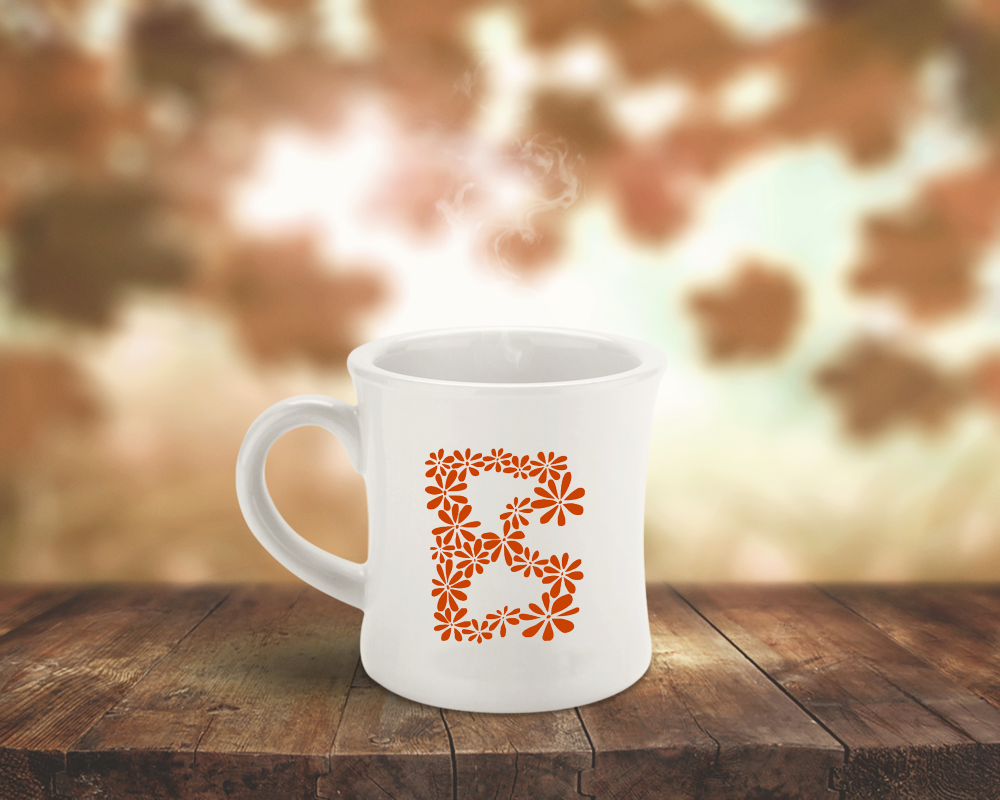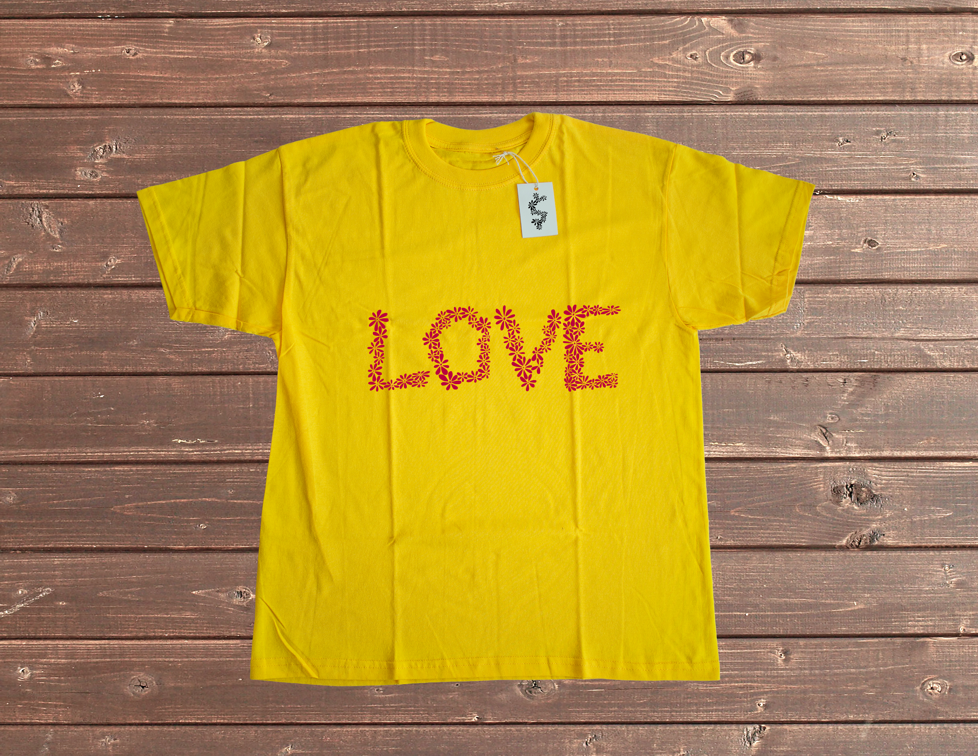
The Chamylle Hand-Drawn Decorative Font: A Designer’s Delight
Are you a designer or crafter looking for a unique and eye-catching font to add a personal touch to your projects? Look no further than the Chamylle font, a beautiful hand-drawn decorative font that is sure to impress. In this article, we’ll take a closer look at the Chamylle font, its features, and how you can use it to elevate your designs.
What is the Chamylle Font?
The Chamylle font is a hand-drawn decorative font that is perfect for adding a touch of elegance and sophistication to your designs. With its delicate lines and whimsical flair, this font is sure to capture the attention of your audience. Whether you’re working on a branding project, a craft tutorial, or a social media graphic, the Chamylle font is a versatile choice that can be used in a variety of contexts.
Features of the Chamylle Font
So, what makes the Chamylle font so special? Here are just a few of its standout features:
- Hand-drawn with love: The Chamylle font is carefully hand-drawn with attention to detail, giving it a unique and personal feel.
- Delicate lines: The font features delicate lines and subtle curves, making it perfect for designs that require a touch of elegance.
- Whimsical flair: The Chamylle font has a playful, whimsical quality that adds a touch of personality to your designs.
- Upper and lowercase letters: The font includes both upper and lowercase letters, making it easy to use in a variety of contexts.
- Multilingual support: The Chamylle font supports multiple languages, making it a great choice for designers who work with international clients.
Using the Chamylle Font in Your Designs
So, how can you use the Chamylle font in your designs? Here are a few ideas to get you started:
- Branding projects: Use the Chamylle font to create a unique and memorable brand identity for your clients.
- Craft tutorials: Add a personal touch to your craft tutorials with the Chamylle font, perfect for titles, headings, and other design elements.
- Social media graphics: Use the Chamylle font to create eye-catching social media graphics that stand out from the crowd.
- Stationery and invitations: The Chamylle font is perfect for creating beautiful stationery and invitations that make a lasting impression.
Tips for Getting the Most Out of the Chamylle Font
To get the most out of the Chamylle font, here are a few tips to keep in mind:
- Experiment with different sizes: The Chamylle font looks great in a variety of sizes, so don’t be afraid to experiment to find the perfect fit for your design.
- Pair with other fonts: The Chamylle font pairs well with other fonts, so try combining it with a bold font for headings or a clean font for body text.
- Use it sparingly: While the Chamylle font is beautiful, it can be overwhelming if used too much. Use it sparingly to add a touch of elegance to your designs.
The Chamylle hand-drawn decorative font is a designer’s delight, offering a unique and eye-catching way to add a personal touch to your projects. With its delicate lines, whimsical flair, and versatility, this font is sure to become a favorite in your design toolkit. Whether you’re working on a branding project, a craft tutorial, or a social media graphic, the Chamylle font is a great choice for designers and crafters who want to create something truly special.